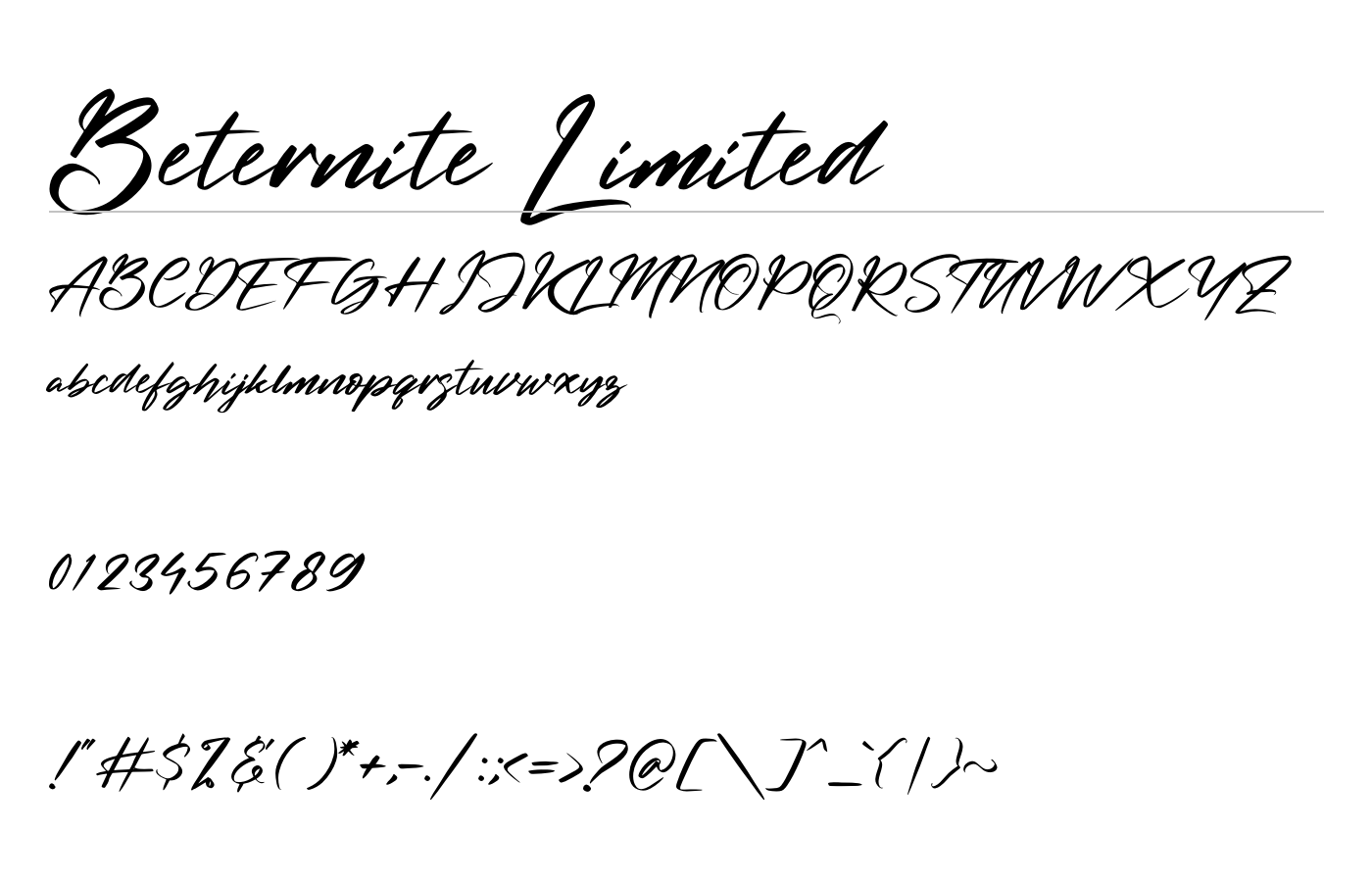
Beternite Limited is an elegant script font with a flowing, handwritten style that combines smooth, expressive strokes with moderate contrast. Its slender, slightly condensed letterforms and natural cursive connections give it a refined yet approachable personality, making it ideal for sophisticated branding, wedding invitations, and fashion-related designs. This font excels in contexts where a personal, stylish touch is desired, especially in logos, headlines, and decorative text.
Beternite Limited Font
About Beternite Limited Font